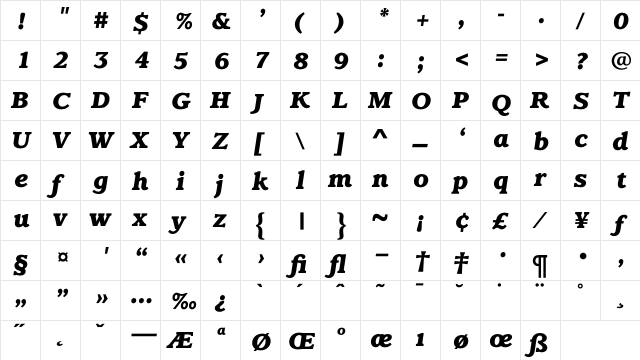
ClaremontExBldIt Regular
Design Context for ClaremontExBldIt Typeface
ClaremontExBldIt offers clean, dependable letterforms without strong stylistic allegiance, making it a practical choice for designers who need flexibility.